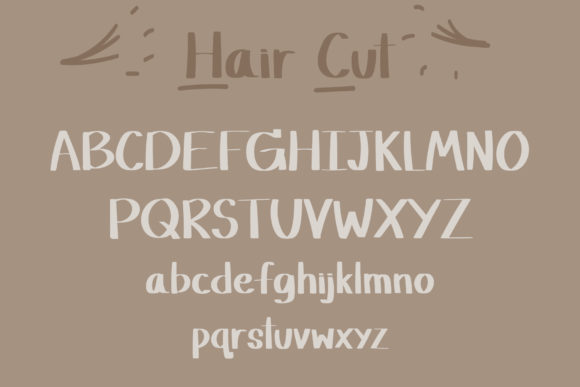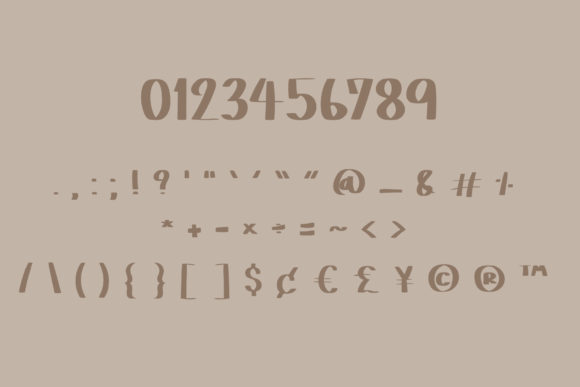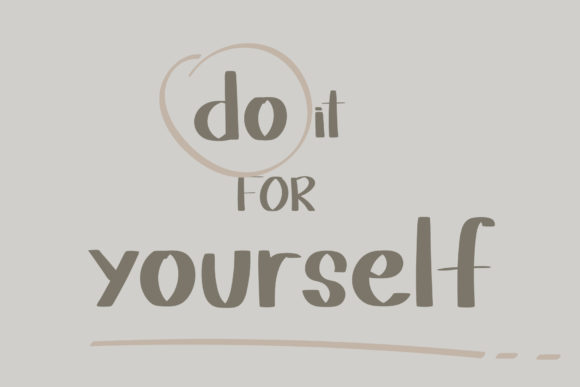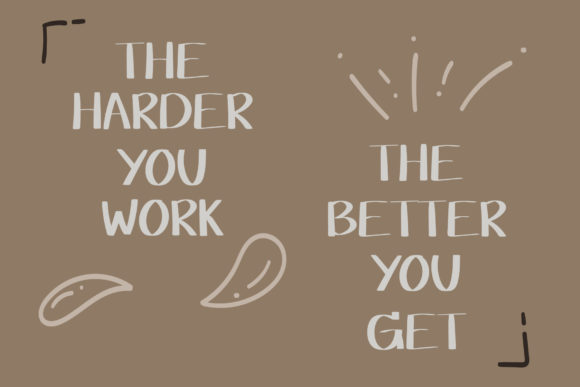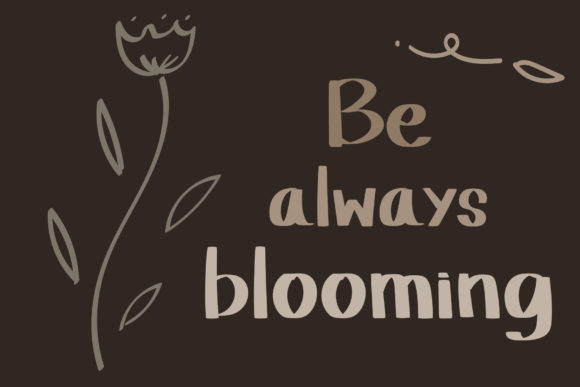
Hair Cut Font
About Hair Cut Font
Hair Cut is a casual handwritten font. It will elevate a wide range of design projects to the highest level, be it branding, headings, wedding designs, invitations, signatures, logos, labels, and much more!